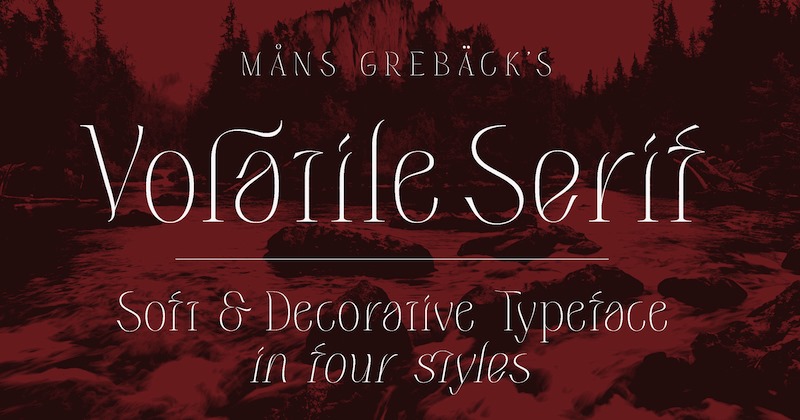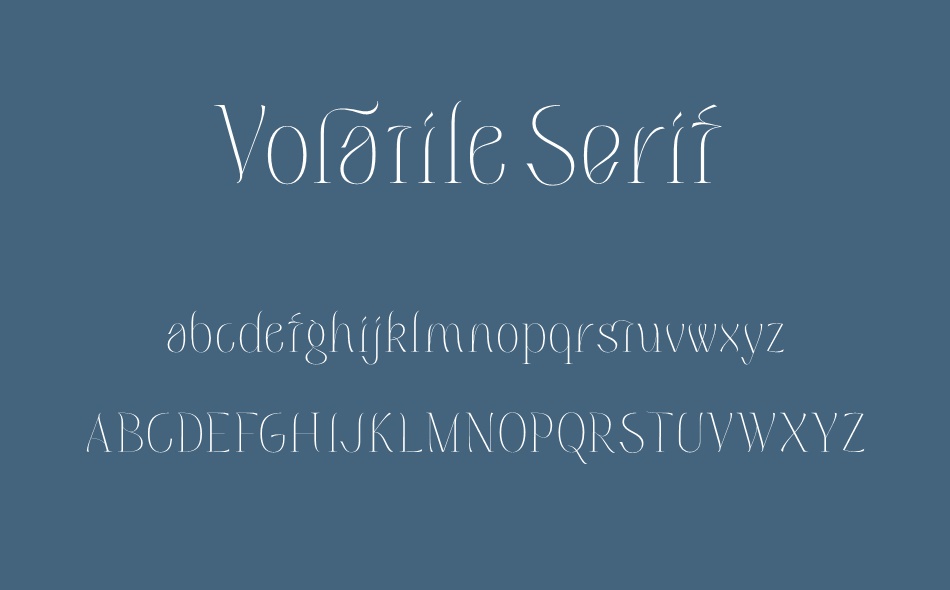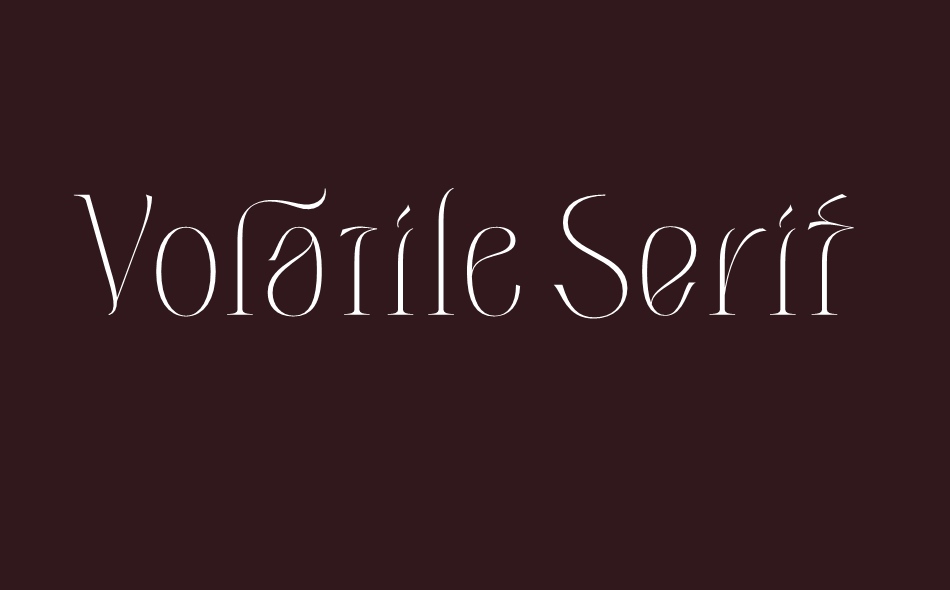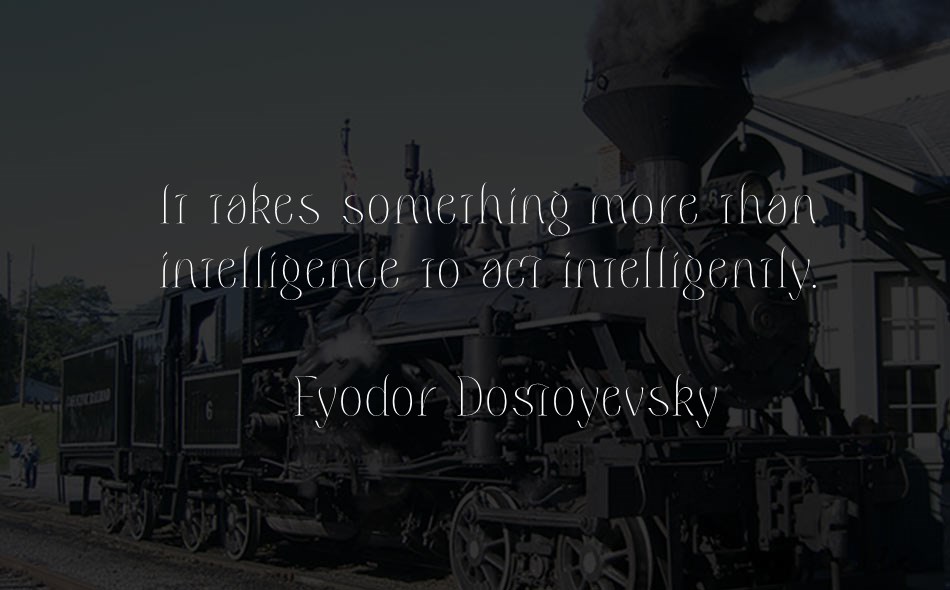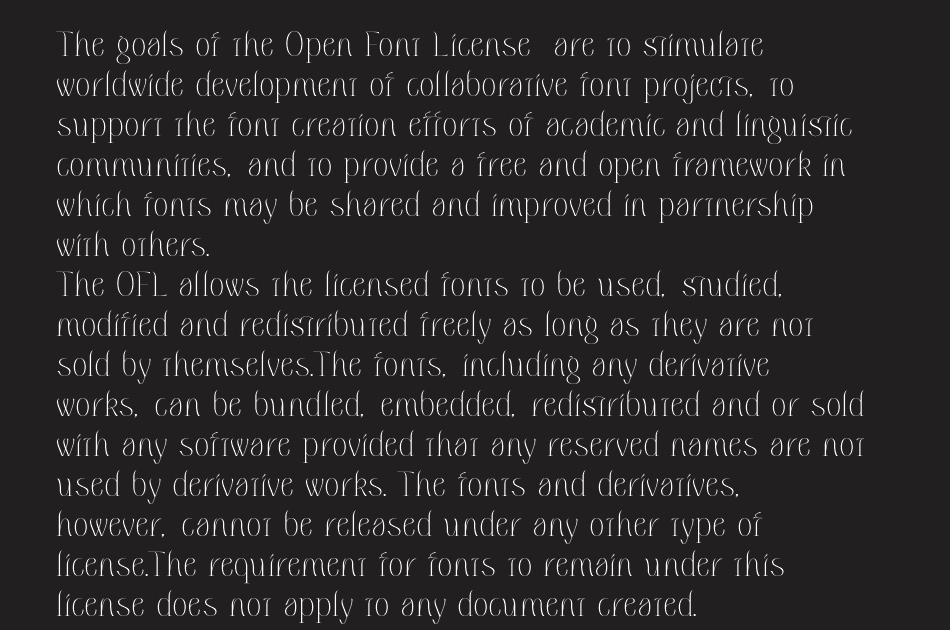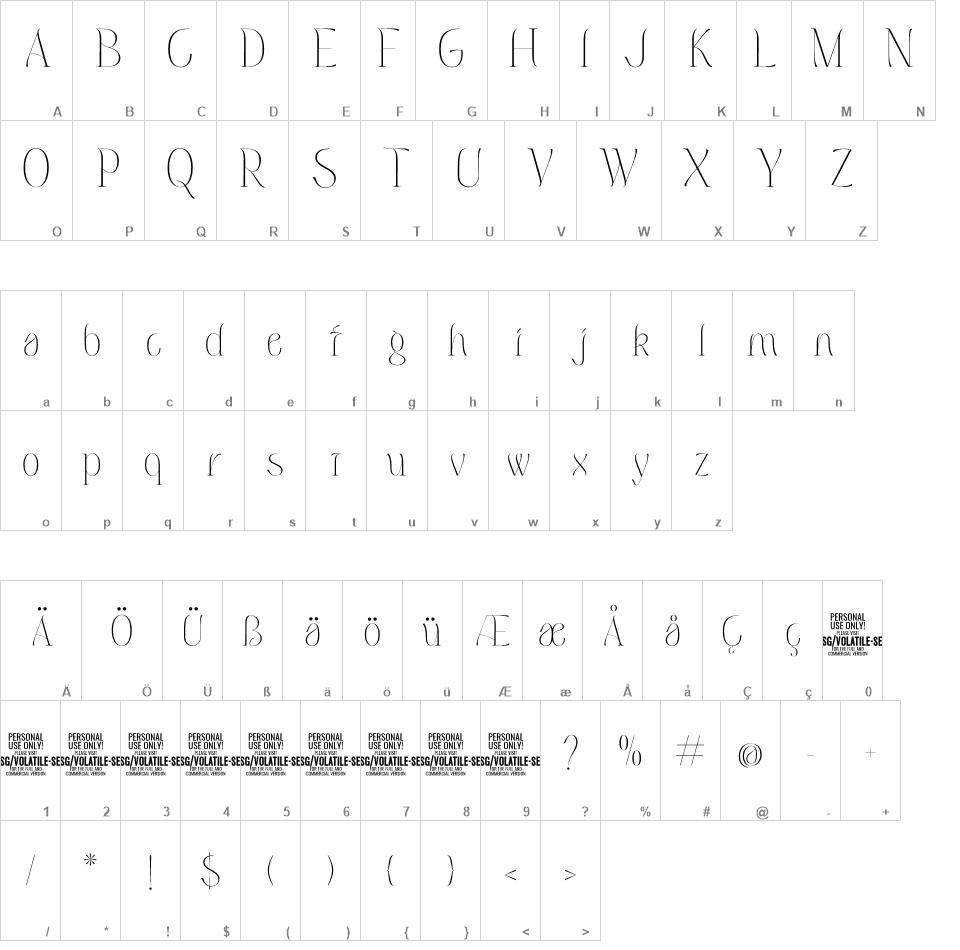
Volatile Serif font
Volatile Serif, designed by Mans Greback, is a luxurious and romantic typeface that exudes an air of softness and delicate beauty.
Its flowing, liquified forms, and delicate swirls evoke feelings of empathy, creating a sense of connection and warmth.
Inspired by the gentle movements of water, Mans sought to capture the essence of fluidity in Volatile Serif. The result is a typeface that feels alive, as if its character is organically creating the word.
Volatile Serif, designed by Mans Greback, is a luxurious and romantic typeface that exudes an air of softness and delicate beauty. Its flowing, liquified forms, and delicate swirls evoke feelings of empathy, creating a sense of connection and warmth. This font is perfect for high-end projects that demand a touch of fine elegance.
Inspired by the gentle movements of water, the designer sought to capture the essence of fluidity in Volatile Serif. The result is a typeface that feels alive, as if its character is organically creating the word, making it a perfect choice for luxury brands, romantic designs, and storytelling.
The font is built with advanced OpenType functionality and has a guaranteed top-notch quality, containing stylistic and contextual alternates, ligatures, and more features; all to give you full control and customizability. It has extensive lingual support, covering all Latin-based languages, from Northern Europe to South Africa, from America to South-East Asia. It contains all characters and symbols you'll ever need, including all punctuation and numbers.
Mans Greback is a Swedish typeface designer with a passion for creating unique and versatile fonts. With an extensive background in design and typography, Mans has built a reputation for his meticulous attention to detail and prolific craftsmanship. His many fonts are widely used by designers around the world, making his work synonymous with creativity and innovation.